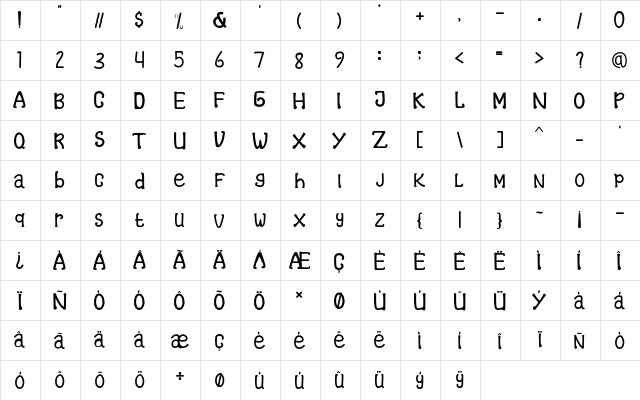
Marry Qween Regular
| Foundry | Alfinart |
| Designer | Alfin Ridhowi |
Design Context for Marry Qween Typeface
Marry Qween offers clean, dependable letterforms without strong stylistic allegiance, making it a practical choice for designers who need flexibility.